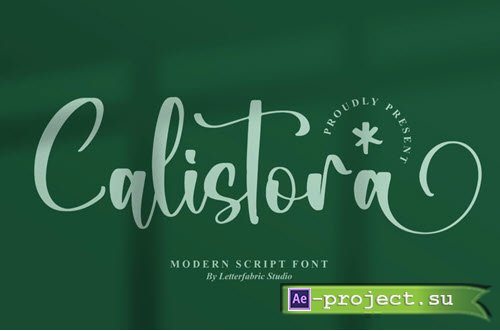
Calistora Modern Script Font
Classification
Serif
Hi ladies & gentlemen, this is one of our fonts suitable to complement your digital and printed creative products. This font is perfect for posters, social media posts, branding, personal projects, etc.